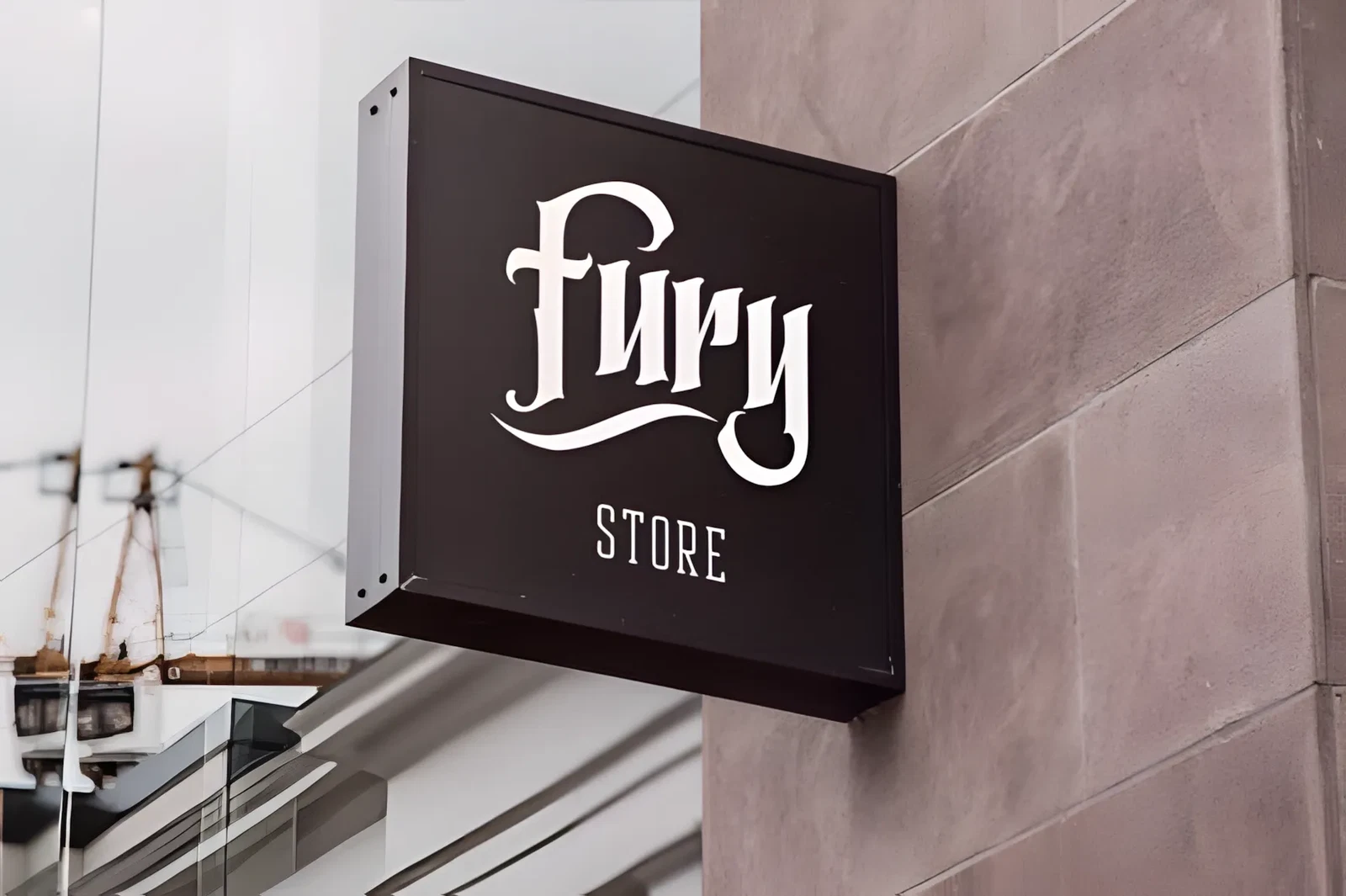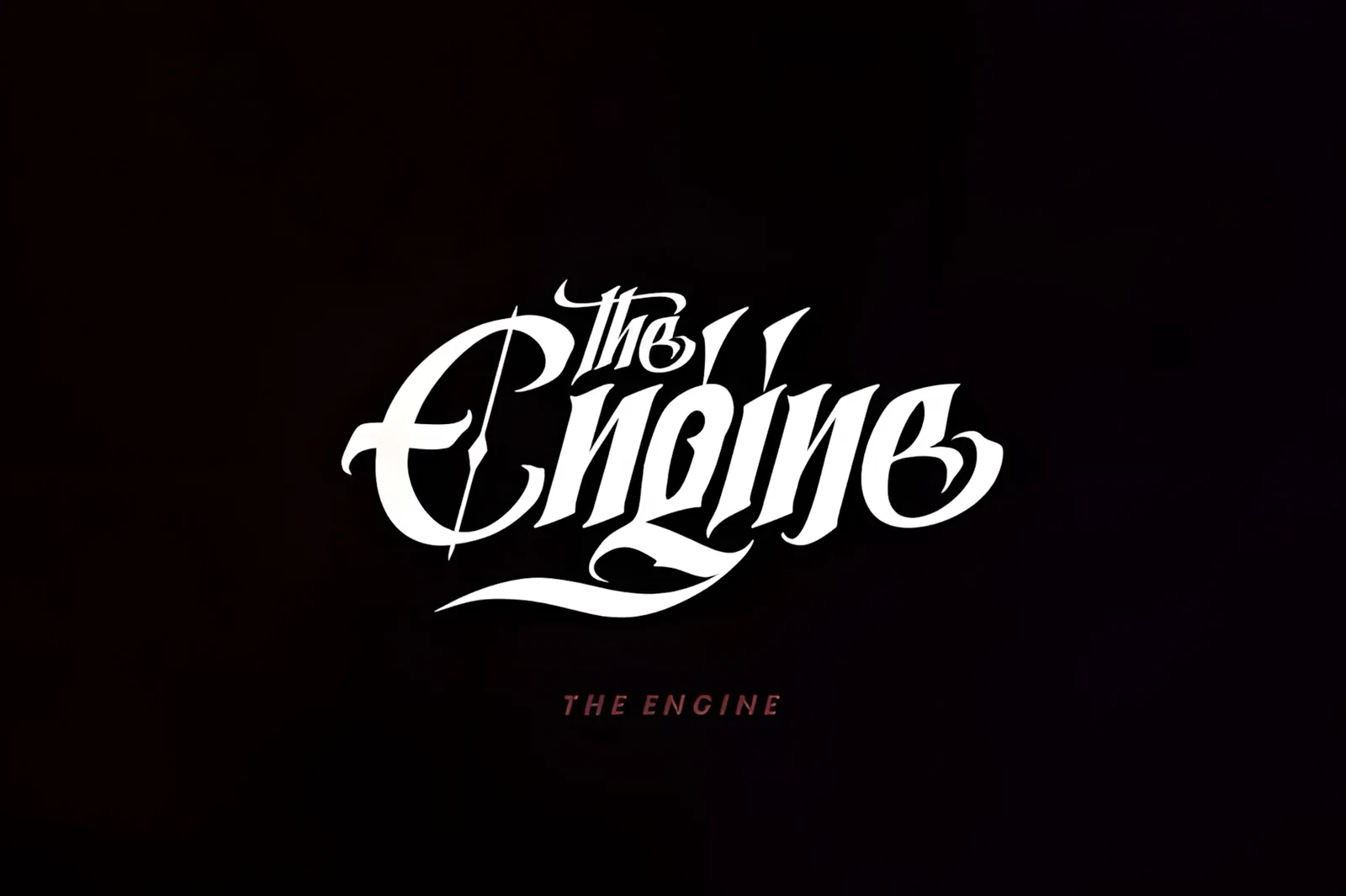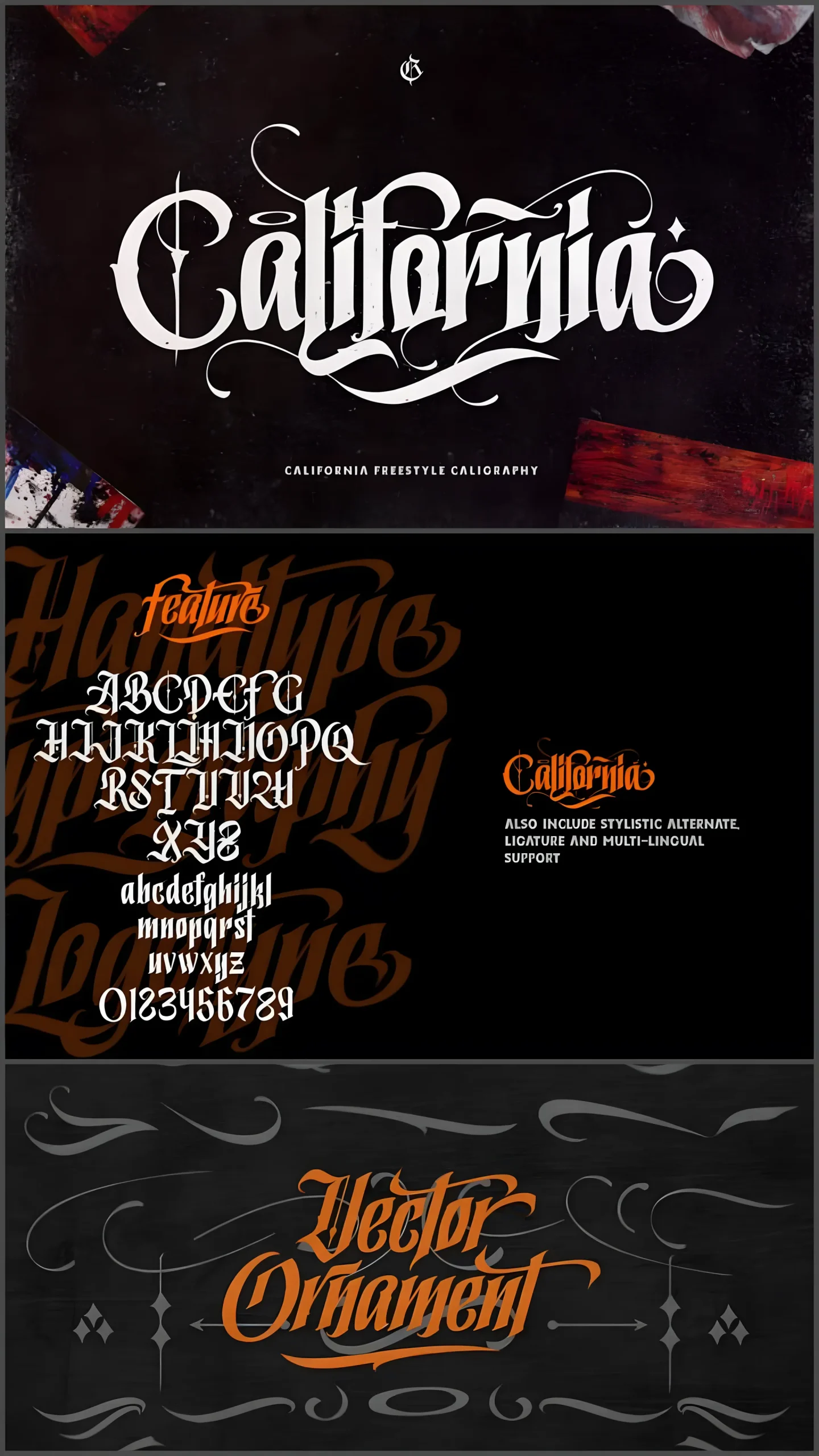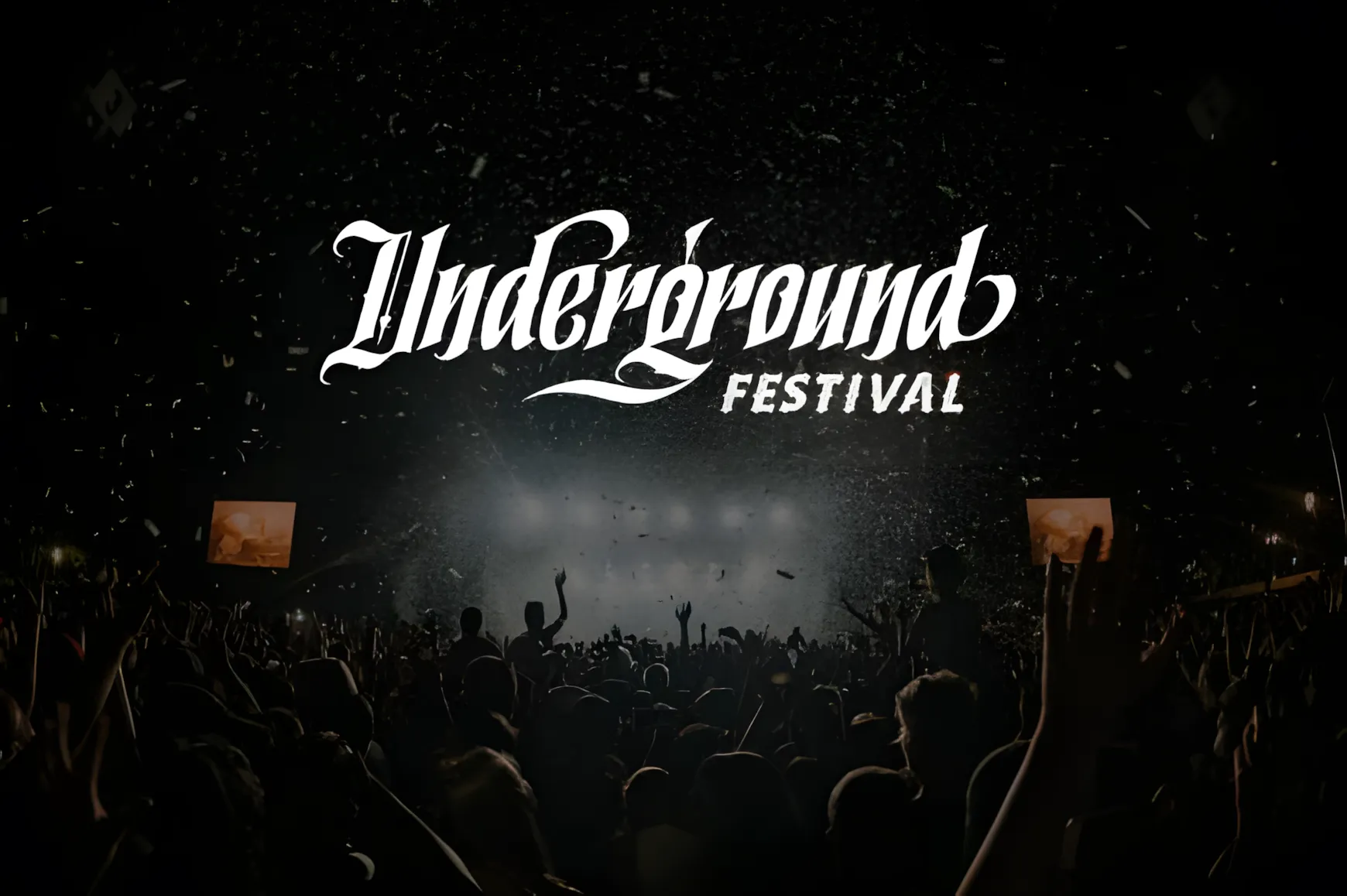
Some blackletter fonts lean heavily into tradition, while others reinterpret the style through a modern lens. California Style Font belongs to the second group. It blends classic blackletter structure with freestyle calligraphic movement, creating a typeface that feels bold, expressive, and unmistakably contemporary.
This font carries a strong street and urban influence while staying rooted in traditional gothic typography. The result is a display font that feels confident, rebellious, and visually powerful.
Visual Style and First Impression
California Style Font immediately makes an impact. The letterforms are bold and thick, with sharp blackletter foundations softened by flowing curves and dynamic strokes. The freestyle slant adds motion, making the text feel alive rather than rigid.
Unlike traditional blackletter fonts that feel formal or historical, this typeface feels modern and expressive. Swashes and stylistic details add personality without overwhelming readability. The overall impression is strong, edgy, and artistic.
It feels designed for statement pieces rather than subtle backgrounds.
A Modern Take on Blackletter Typography
At its core, California Style Font is a blackletter display typeface, but it does not follow strict medieval rules. Instead, it introduces:
- freestyle calligraphic movement
- expressive swashes
- modern proportions
This approach gives the font a unique balance between tradition and contemporary design. It respects the gothic roots while adapting them for modern branding, apparel, and visual culture.
Designed for Bold Visual Identity
California Style Font works best in projects where typography needs to carry attitude and identity. It naturally fits designs related to:
- streetwear culture
- music and album artwork
- tattoo-inspired visuals
- bold branding
The font does not try to blend in. It is meant to be noticed and remembered.
Practical Design Applications
Logos and Branding
One of the strongest use cases for California Style Font is logo design. The expressive blackletter style creates logos that feel powerful and distinctive.
It works especially well for:
- streetwear brands
- music artists and labels
- alternative lifestyle brands
- personal logos
The freestyle slant and swashes add character that helps logos stand out without needing extra graphic elements.
Apparel and Merchandise
California Style Font translates extremely well to physical products. The bold strokes and thick shapes hold up nicely in:
- t-shirts
- hoodies
- hats
- merchandise graphics
The font works reliably in printing, embroidery, and cutting workflows, making it suitable for both fashion and promotional merchandise.
Posters, Covers, and Music Artwork
For posters and covers, California Style Font delivers instant visual authority. Headlines feel bold and expressive, making them perfect for:
- concert posters
- album covers
- event promotions
- street-style artwork
The font communicates attitude and energy even with minimal text.
Tattoos, Stickers, and Creative Projects
Because of its blackletter roots and calligraphic style, this font is often used in tattoo-inspired designs. It also works well for:
- stickers
- decals
- wall art
- creative personal projects
The strong outlines and flowing strokes give designs a handcrafted feel.
Readability and Usage Notes
California Style Font is a display font, not intended for long paragraphs. It performs best in:
- titles
- logos
- short phrases
- featured text
Spacing is important. Allowing room for swashes and decorative strokes helps maintain clarity. Pairing it with a clean sans-serif font for body text creates a strong and balanced layout.
Emotional Tone and Design Feel
The emotional tone of California Style Font is bold, rebellious, and confident. It feels expressive rather than formal and artistic rather than traditional.
This makes it ideal for designs that aim to communicate:
- strength
- individuality
- street culture
- creative freedom
The font carries attitude without feeling chaotic, which is key to its appeal.
California Style Font successfully modernizes blackletter typography without losing its identity. By combining bold gothic structure with freestyle calligraphic movement, it creates a typeface that feels expressive, contemporary, and full of character.
For designers looking to create strong visual statements rooted in street culture and artistic freedom, this font offers a powerful solution. Used thoughtfully, California Style Font turns typography into a confident and memorable visual signature.